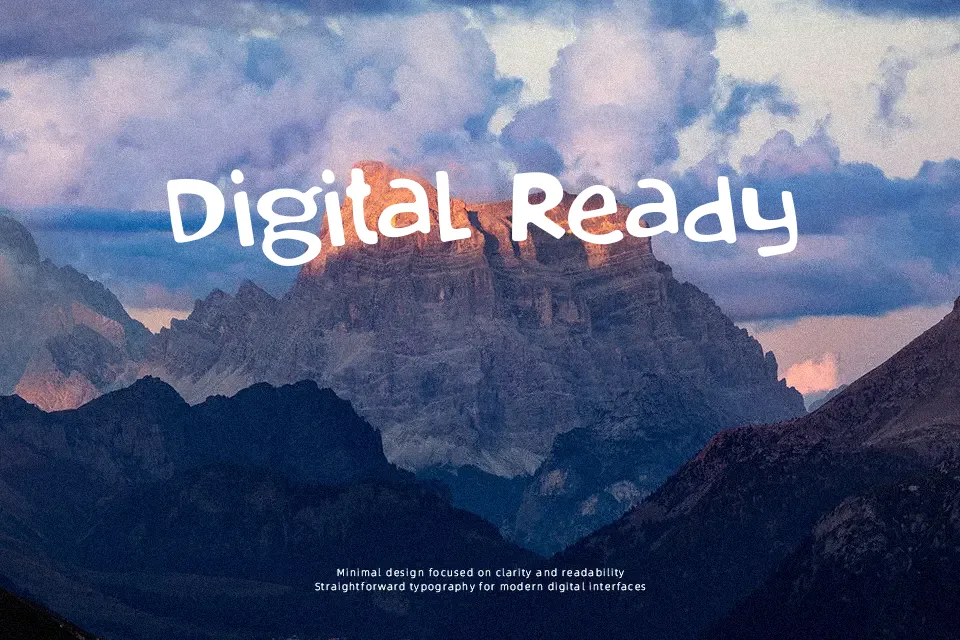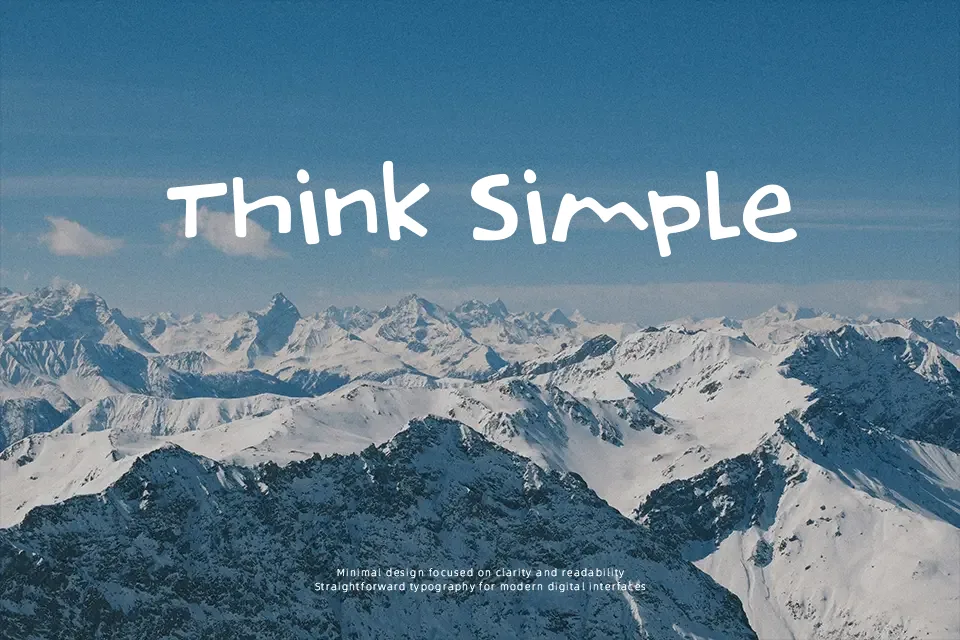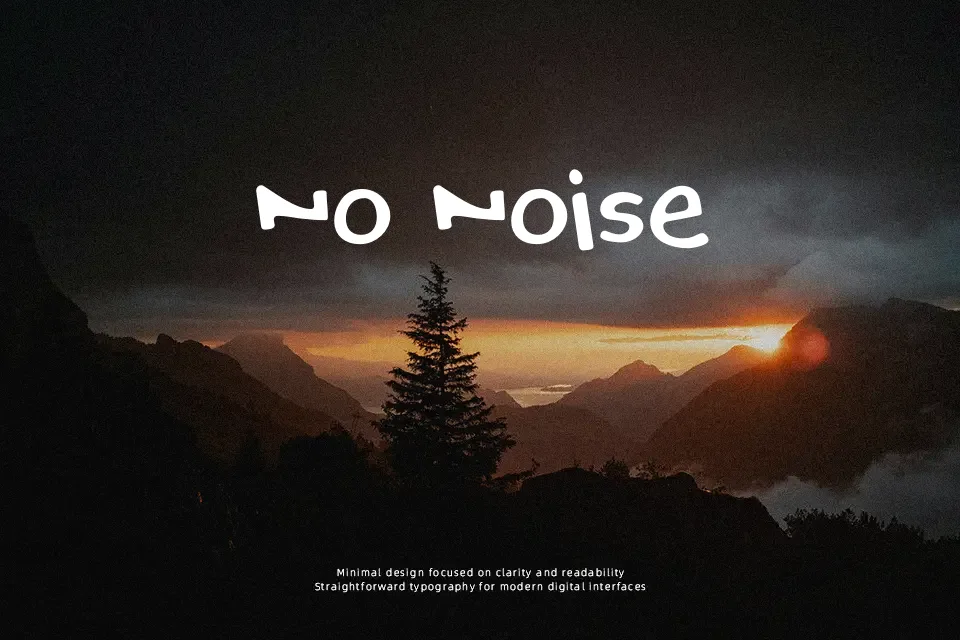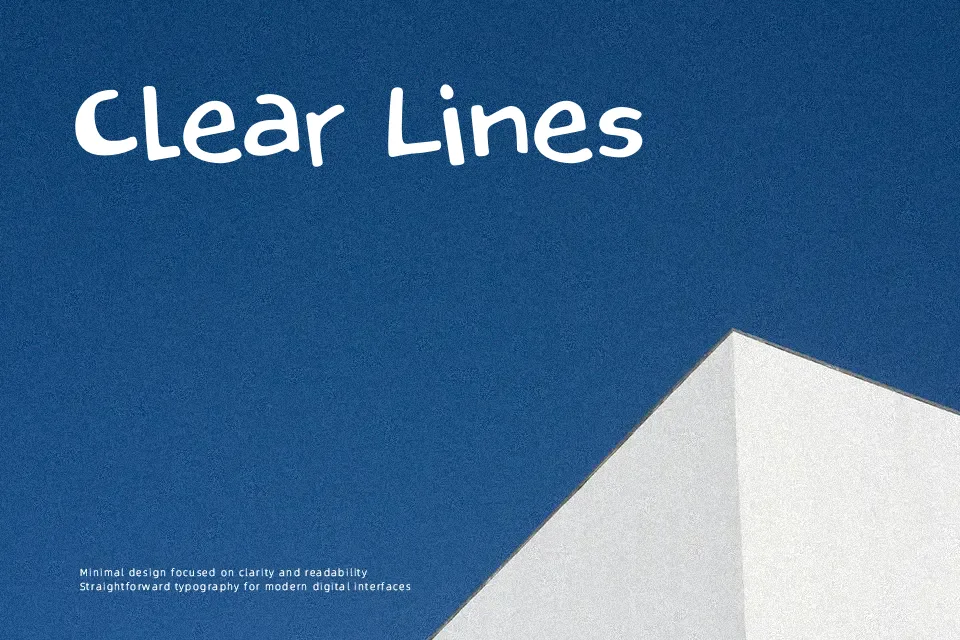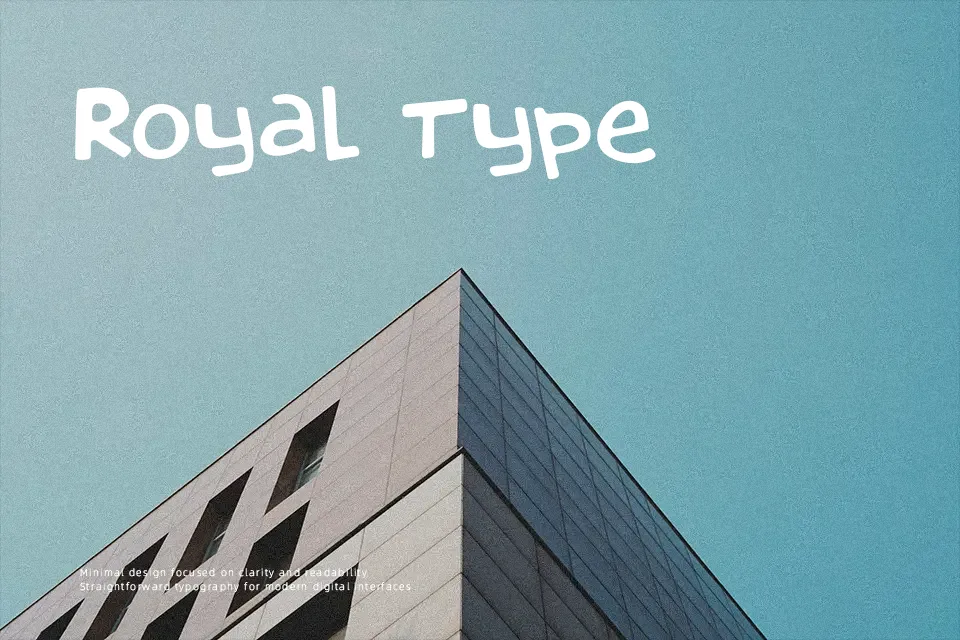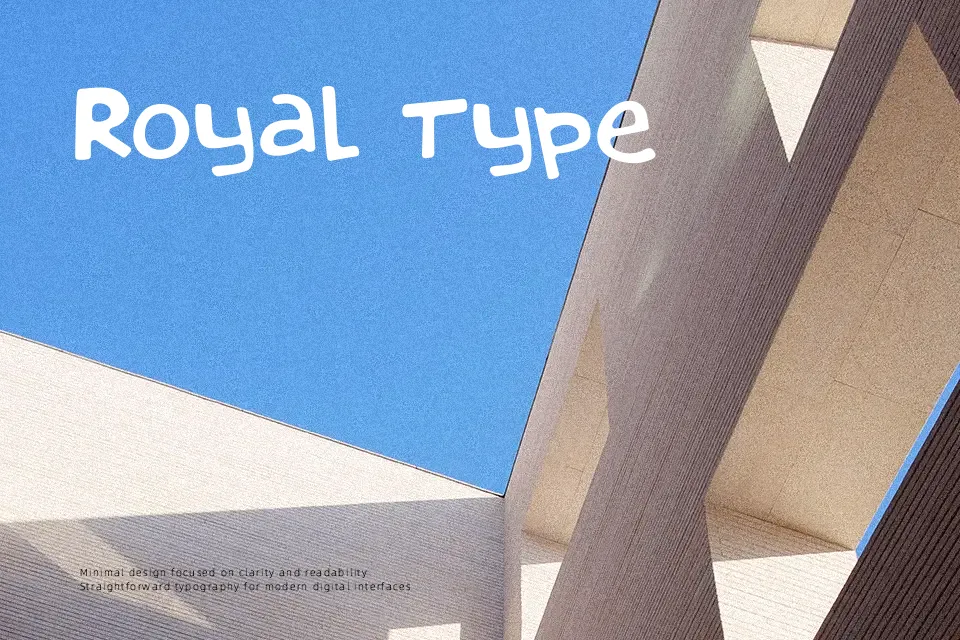
DK Orenji Font
DK Orenji Font has a casual comic look with thick rounded strokes, slightly irregular letter shapes, and open spacing that keeps short words readable at display sizes. The structure feels hand-drawn rather than cleanly geometric, which gives it a friendly, slightly goofy tone. It suits children’s posters, playful food packaging, classroom materials, and lighthearted brand graphics where a polished corporate finish would feel too stiff. I’d use it when the design needs warmth and a bit of personality without becoming messy. It is less convincing in formal layouts, dense text blocks, or premium branding, where its loose rhythm can start to feel overly informal.
Perfect for branding, kids, and packaging, with a creative and comic style.